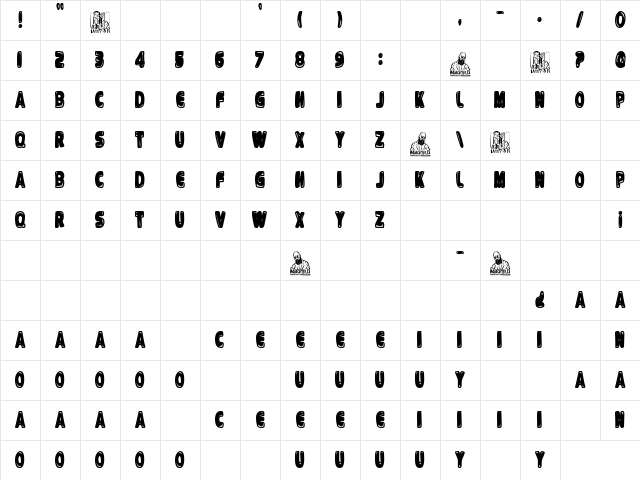
Avenida Goya Regular Free Font
Avenida Goya Regular
Designer: Woodcutter Manero
Design Context for Avenida Goya
Avenida Goya is a composed and adaptable typeface that performs quietly and consistently across a wide range of design contexts.